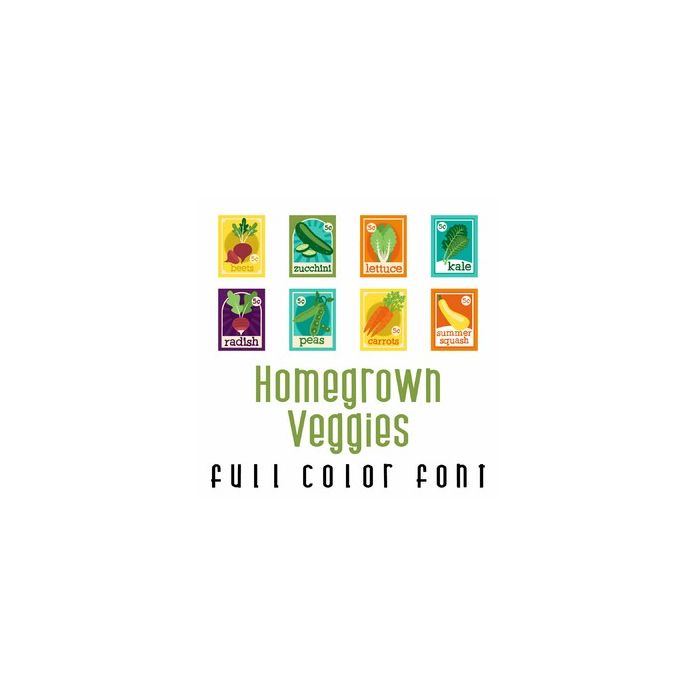
This fun full color doodlebat font features beautiful vegetable seed packets. Perfect for cards, crafts, gifts, decor, scrap book pages, planner stickers and more!